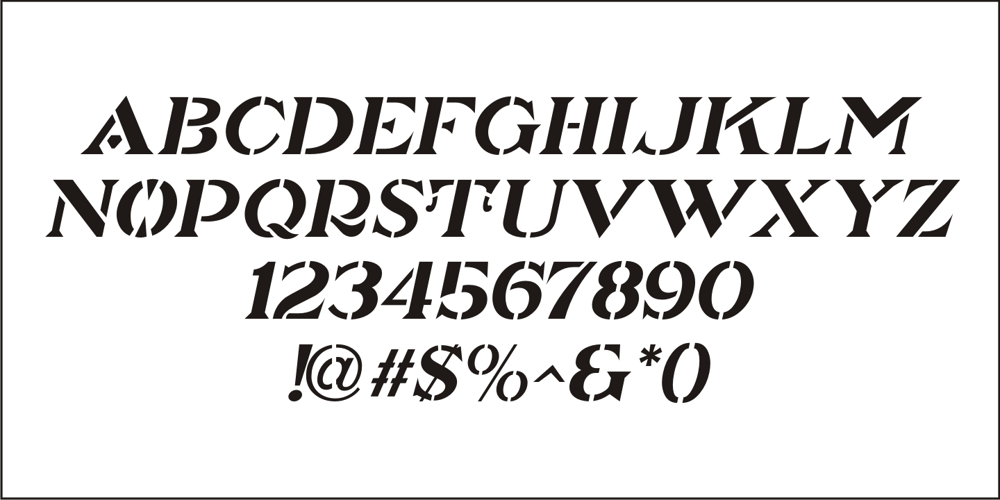
Picturesque Stencil JNL
Picturesque Stencil JNL font
Picturesque Stencil JNL Font Family was designed by Jeff Levine and published by Jeff Levine. Picturesque Stencil JNL contains 2 styles and family package options. Picturesque Stencil JNL gets its name and design from the title of a circa-1920s children’s stencil activity book entitled “Dean’s Picturesque Stencil Book No. 10 – Series 75”; published by the F. Weber Company of Philadelphia and printed in England by Dean. The book’s stenciled title was hand lettered in a bold Roman design in the Art Nouveau style. Picturesque Stencil JNL is available in both regular and oblique versions.